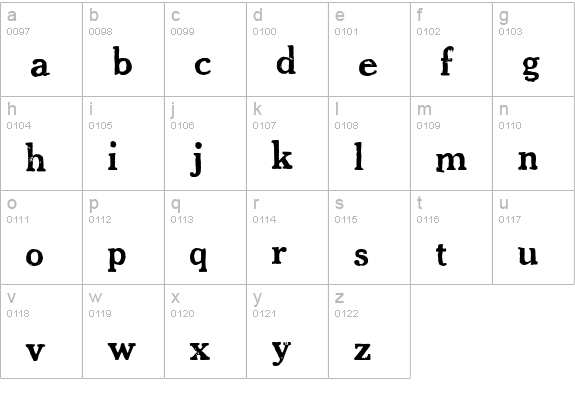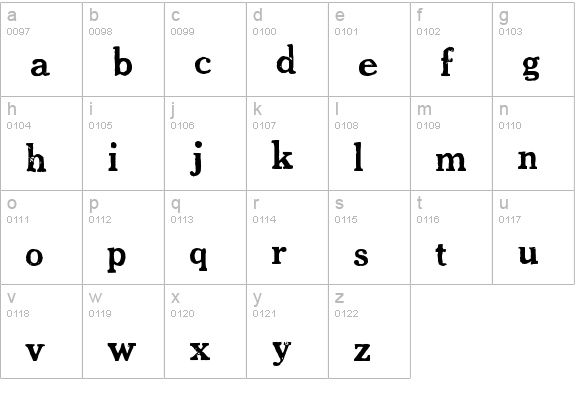
CheltPressDarkVariegated Font Details
CheltPressDarkVariegated font is a unique and eye-catching typeface that combines classic elegance with a modern twist. Its intricate design features dark variegated patterns that add depth and character to any project. This versatile font is perfect for a wide range of design applications, from branding to packaging, invitations to social media graphics. The best part? CheltPressDarkVariegated font is completely free to download at FontsMarket.com. So you can add a touch of sophistication to your designs without breaking the bank. Don't miss out on this opportunity to elevate your projects with this stunning font. Download it today and let your creativity shine!